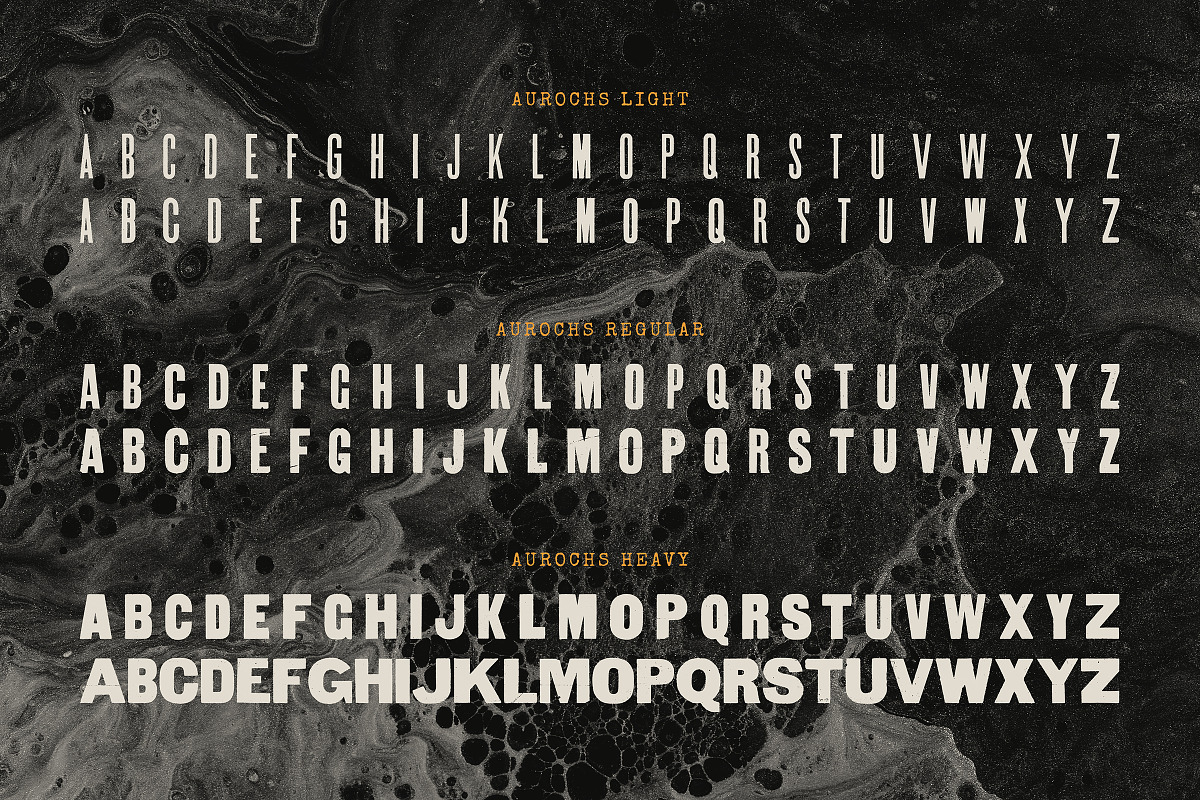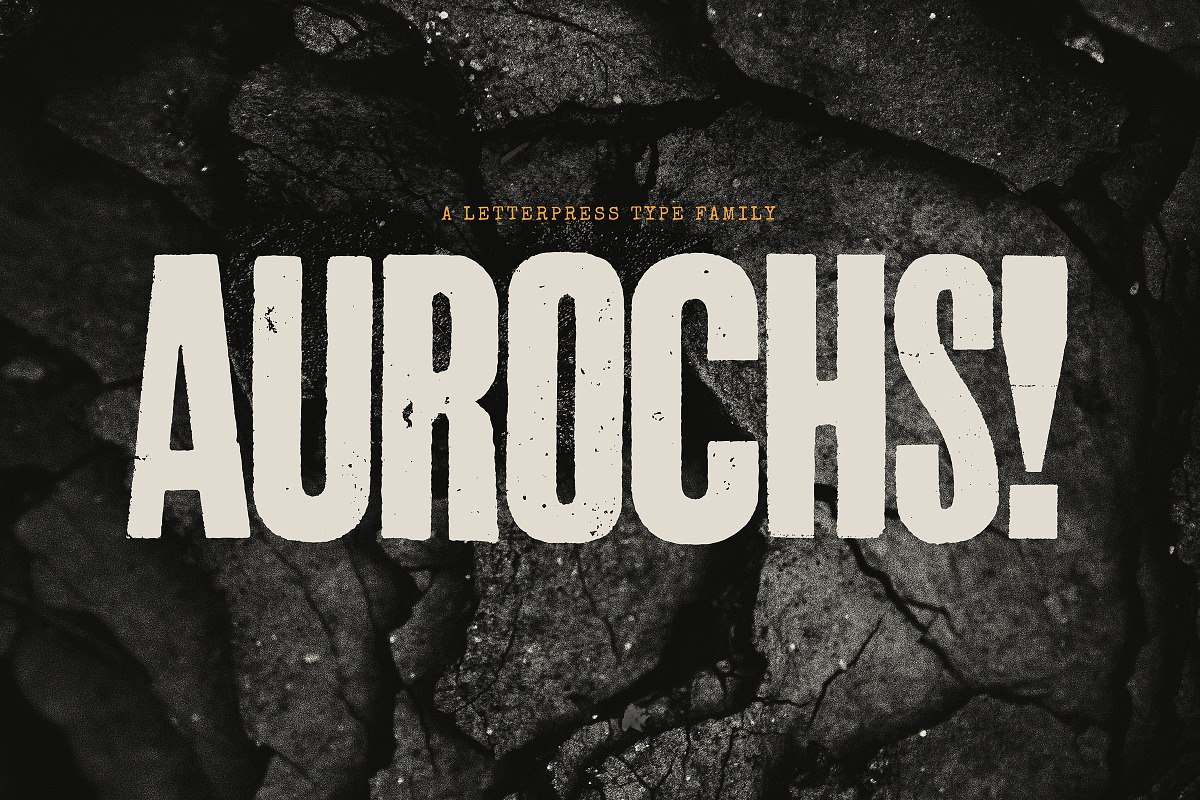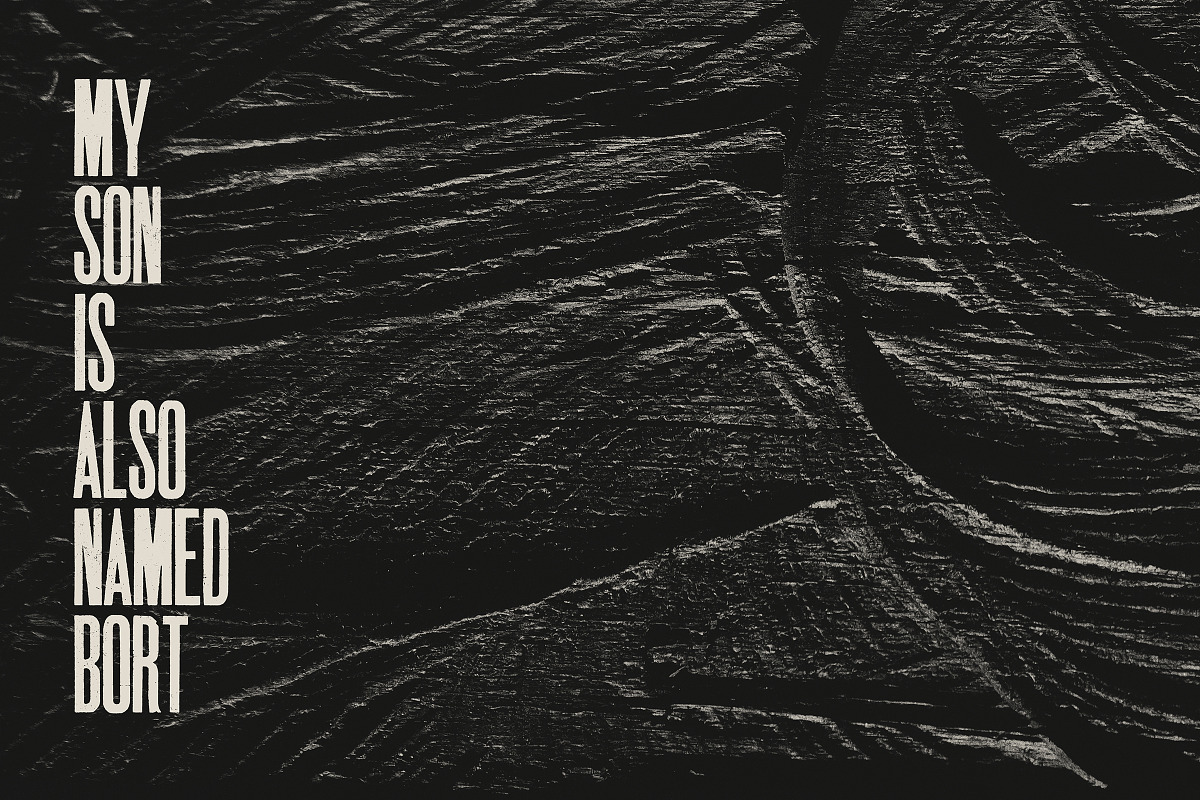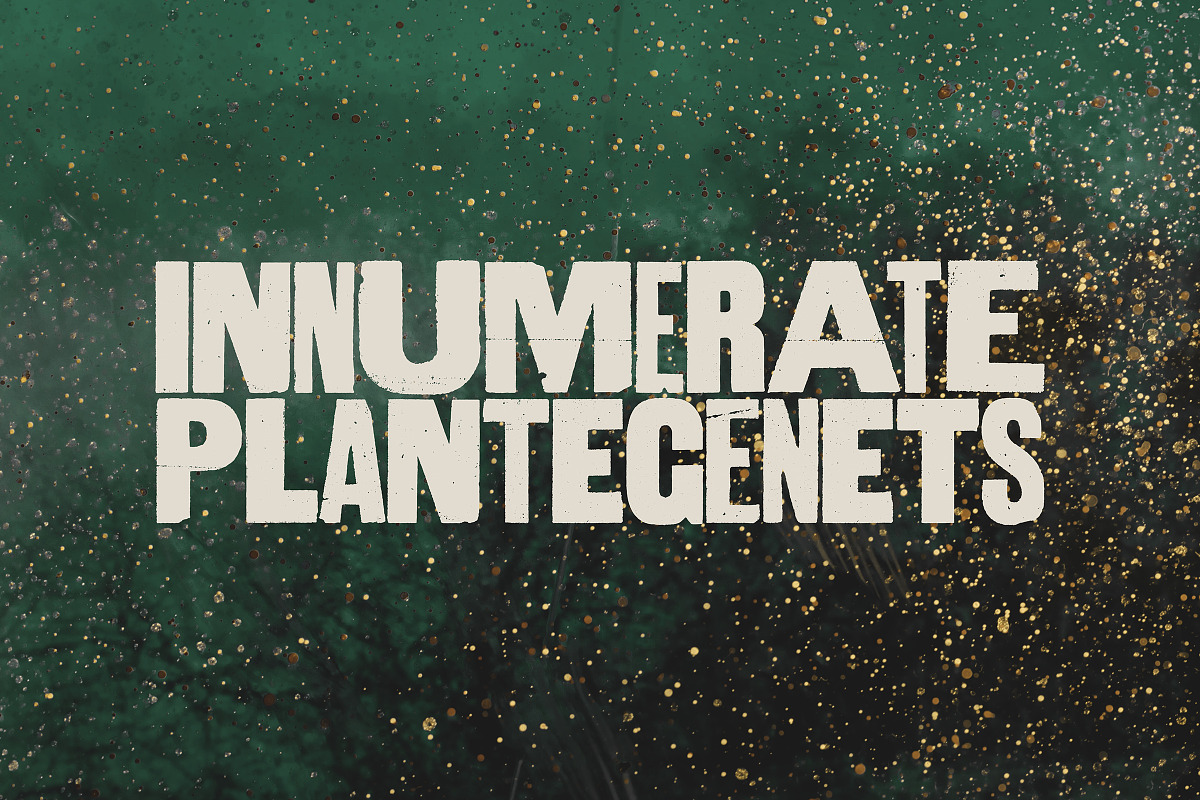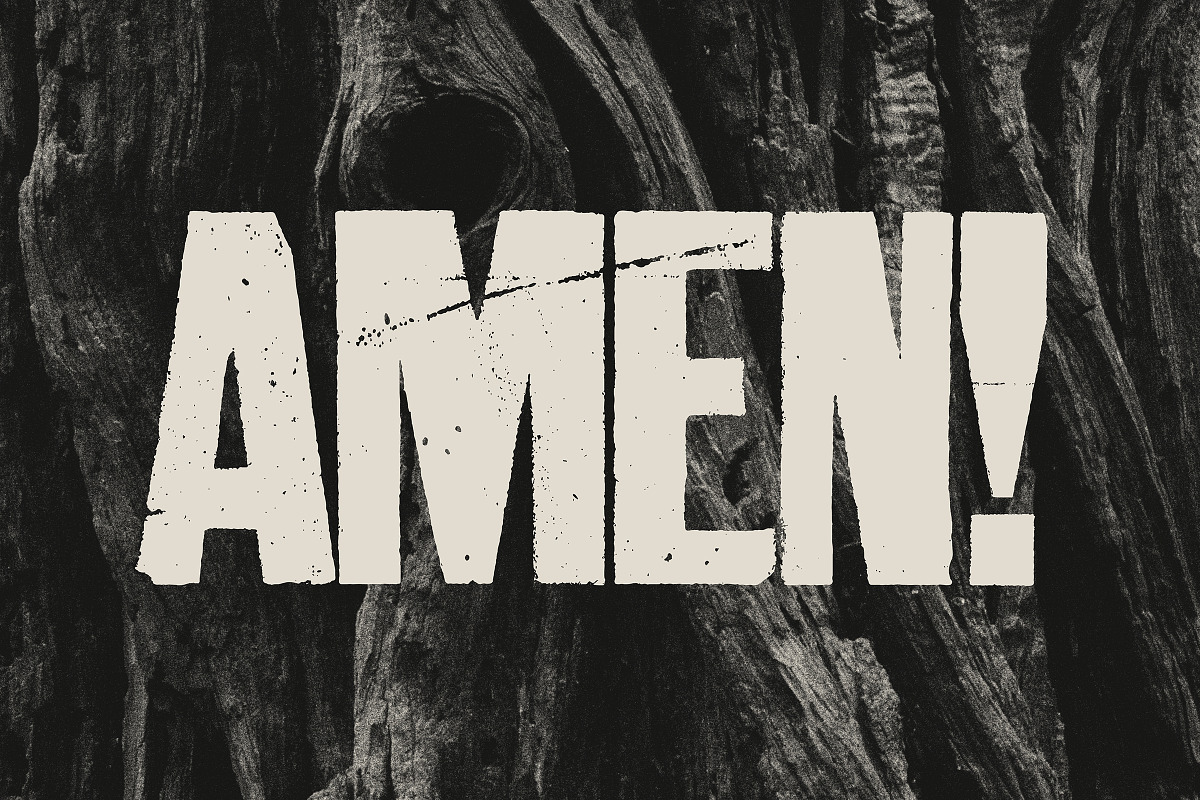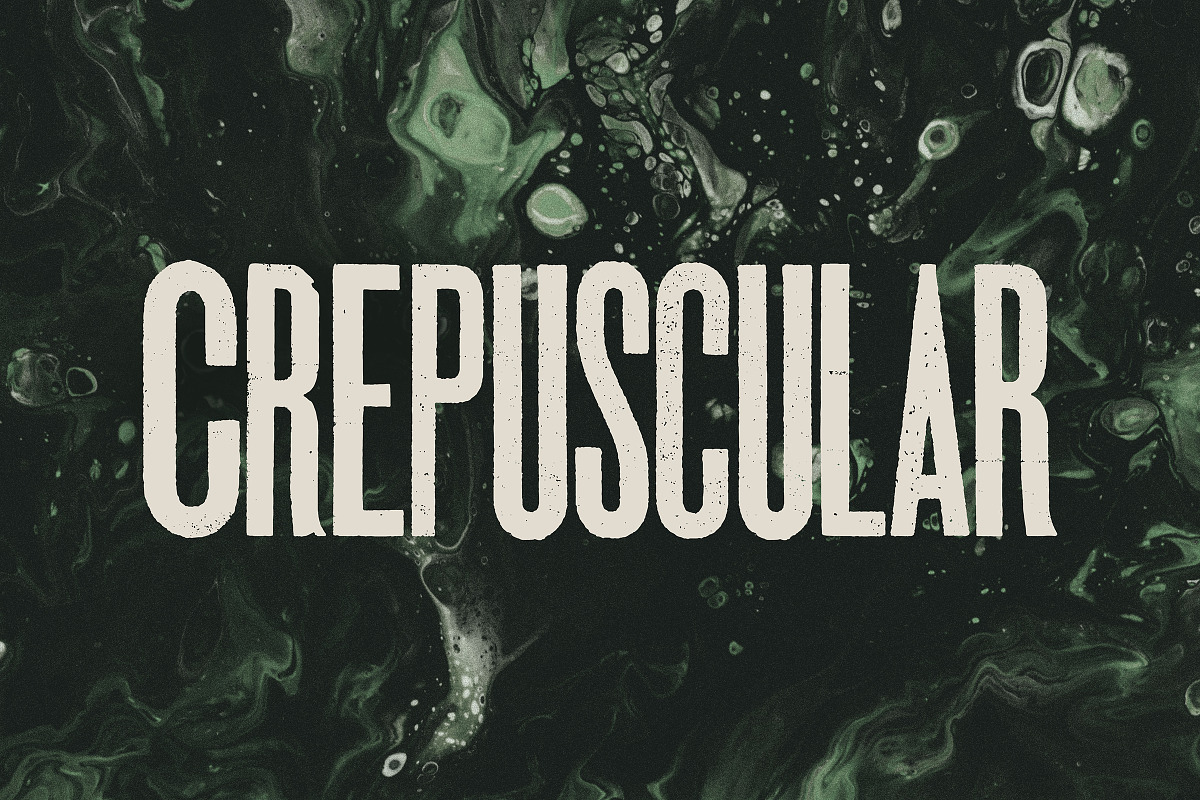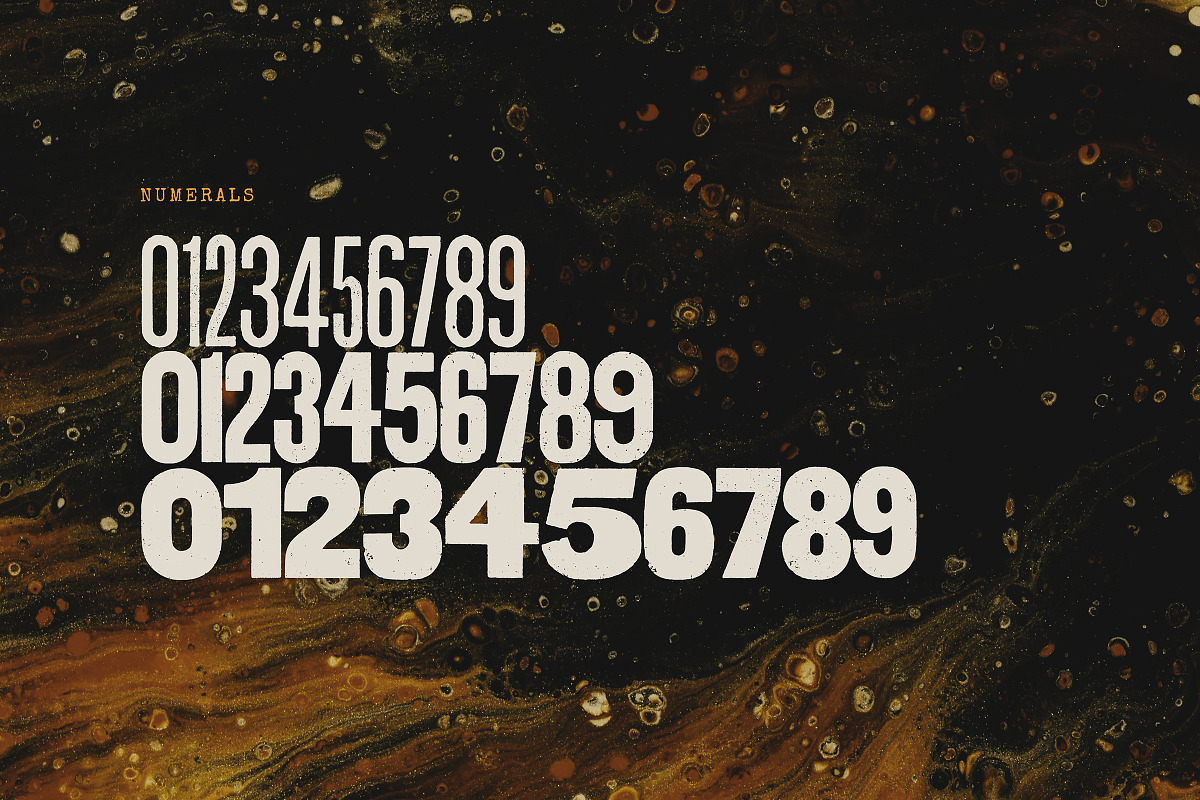
Aurochs is a display type family in six weights, developed from scans of vintage letterpress and woodblock prints.
Aurochs evokes the original typographic wild west, when letterforms were handmade, imperfect and often mismatched, with various weights and styles jumbled together in a kind of controlled chaos.
Perfect for editorial design, branding, and posters.
- capitals only
- three weights (light, regular and heavy), each with two further variations
- full english alphabet, numerals and punctuation